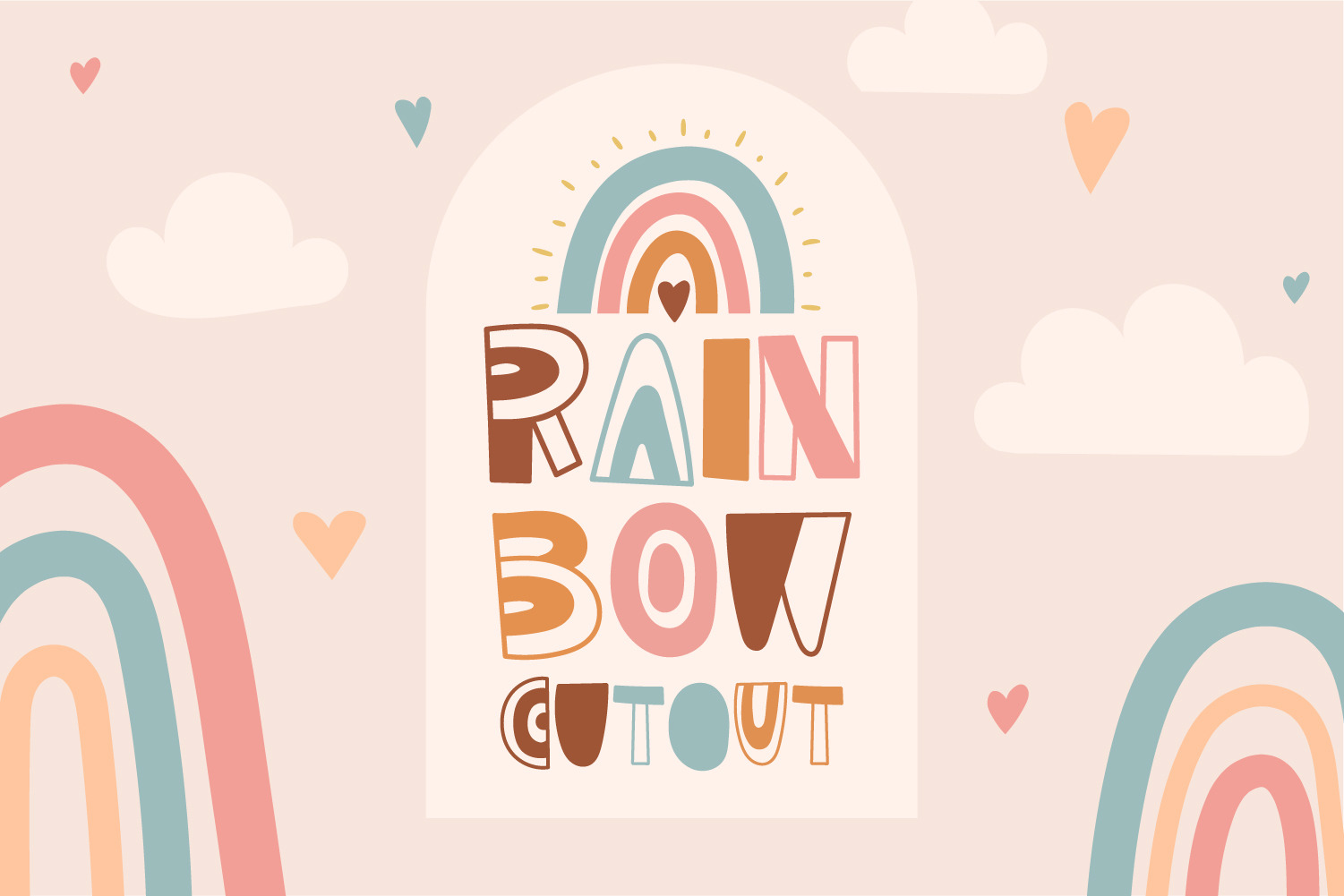
Boho Rainbow Baby Font
Our Boho Rainbow Baby Font is perfect for creating art that's full of character and whimsy. The font is inspired by the bohemian, hippy culture of the '60s and '70s, and is perfect for any project that requires an element of nostalgia or a sense of adventure.
The Boho baby font features a sans-serif font versatile and perfect for decorations, apparel, tumbler, wall personalization art, and any sublimation project. With its unique, playful design, the Boho Rainbow Baby Font will bring a touch of nostalgia and creativity to your projects.